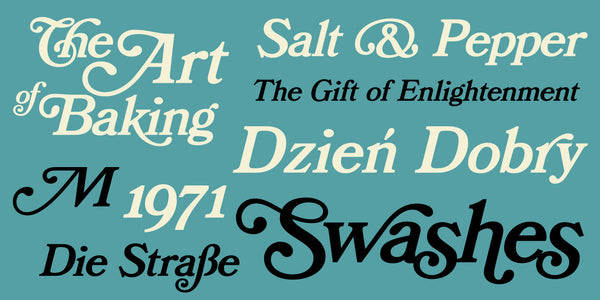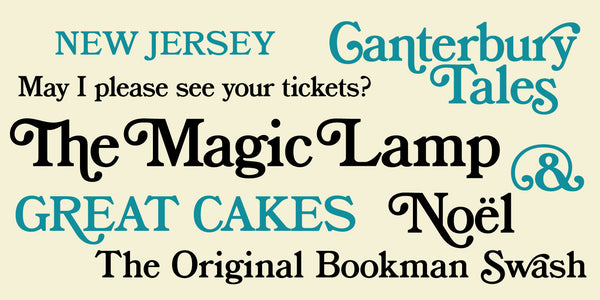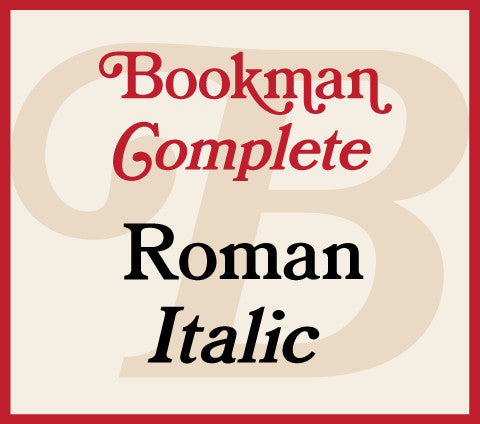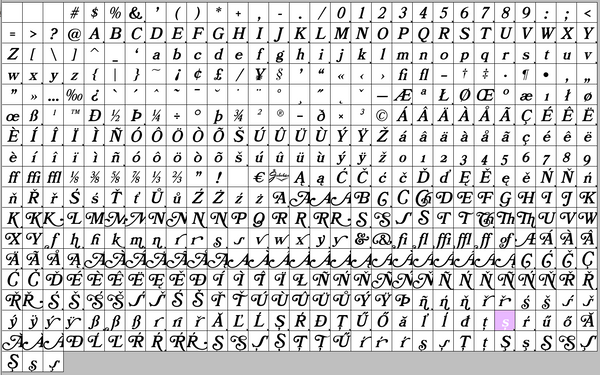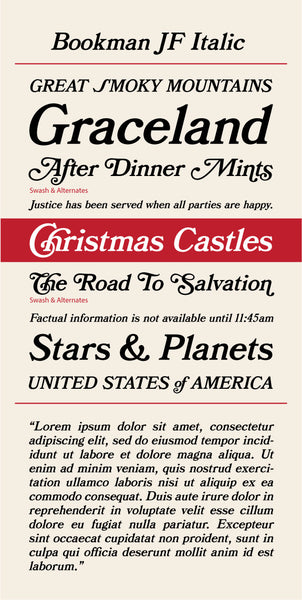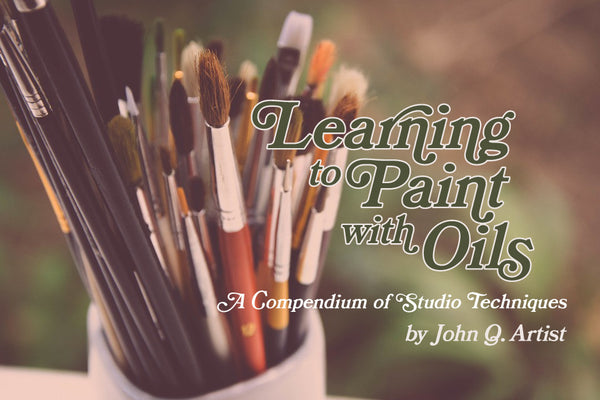
BookmanJF Complete
BookmanJF is the classic "Bookman Swash" font that has been beloved by graphic designers for decades.*. The original Bookman and Bookman Italic fonts—including their unique and highly sought-after swash alternates—never made into digital type at the start of the 1980s. I finally decided they would make a perfect addition to the Jukebox collection. Fleshed out in OpenType format these fonts really sing and putting in the swash characters is easy with OpenType features. Bookman is a classic Clarendon style font that evokes design eras from both the early 20th Century right through the 1970s when they hit their height of popularity. Especially the Italic face…
Until I created this digital version for Jukebox these were one of the most requested fonts people looked for online.
*Original Bookman and Swash designed by Alexander Phemister & Chauncey Griffith